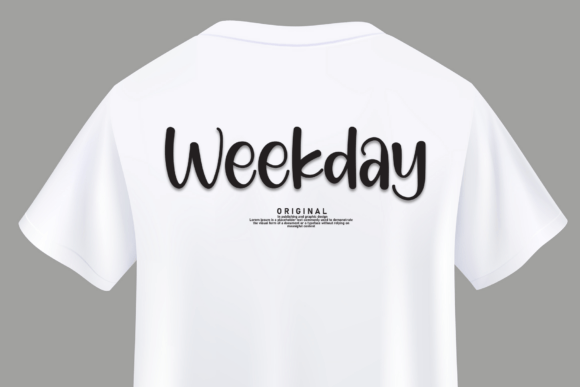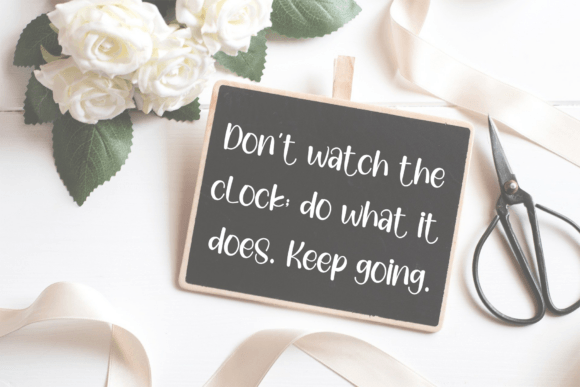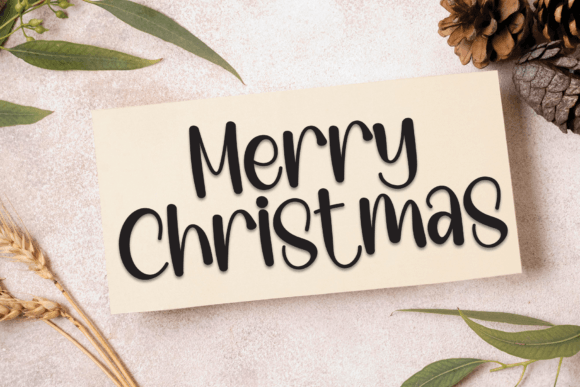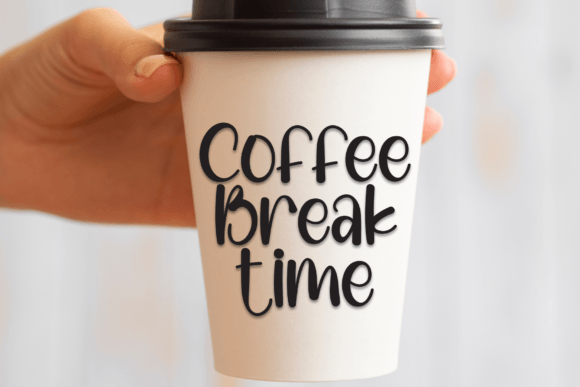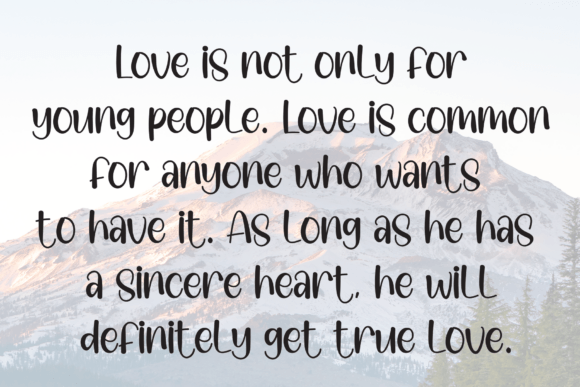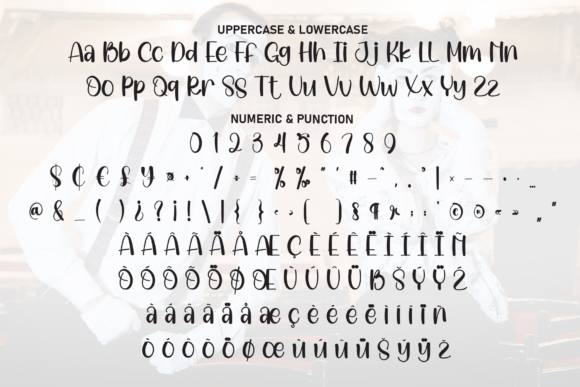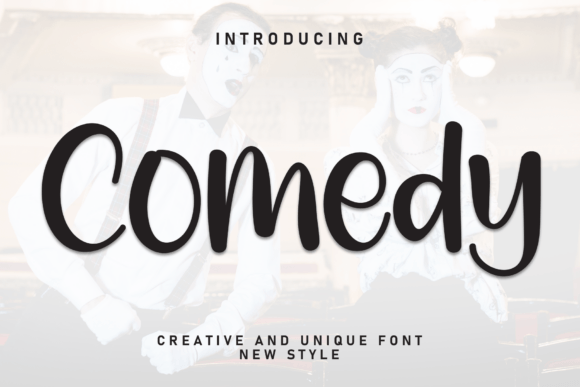
The Power of Comedy Font: Adding a Cheerful Touch to Your Designs
Are you tired of using the same old fonts in your designs? Do you want to add a playful and cheerful touch to your posters, invitations, and social media posts? Look no further than the Comedy Font! This bold and fun handwritten font is perfect for designers and crafters who want to bring a sense of joy and creativity to their work.
What is Comedy Font?
Comedy Font is a playful, handwritten font that features bold, fun letters. Its casual and lighthearted style makes it perfect for a variety of design projects, from posters and invitations to social media graphics and more. The thick strokes of the font make it easy to read, while its quirky charm brings a sense of personality and whimsy to any design.
Key Features of Comedy Font
- Bold and Fun Letters: Comedy Font features bold, fun letters that are sure to grab attention.
- Casual and Lighthearted Style: The font has a casual and lighthearted style that is perfect for adding a cheerful touch to your designs.
- Easy to Read: The thick strokes of the font make it easy to read, even at smaller sizes.
- Quirky Charm: The font’s quirky charm brings a sense of personality and whimsy to any design.
Uses for Comedy Font
Comedy Font is a versatile font that can be used in a variety of design projects, including:
- Posters: Use Comedy Font to create eye-catching posters for events, promotions, and more.
- Invitations: Add a playful touch to your invitations with Comedy Font.
- Social Media Graphics: Use Comedy Font to create fun and engaging social media graphics.
- Crafting Projects: Comedy Font is perfect for crafters who want to add a personal touch to their projects, such as handmade cards and gift tags.
Tips for Using Comedy Font
Here are a few tips for using Comedy Font in your designs:
- Use it Sparingly: While Comedy Font is fun and playful, it can be overwhelming if used too much. Use it sparingly to add a touch of personality to your designs.
- Pair it with Other Fonts: Comedy Font pairs well with other fonts, such as sans-serif fonts. Experiment with different pairings to find the one that works best for your design.
- Experiment with Colors: Comedy Font looks great in a variety of colors. Experiment with different colors to find the one that works best for your design.
Comedy Font is a fun and playful font that is perfect for designers and crafters who want to add a cheerful touch to their work. Its bold and fun letters, casual and lighthearted style, and quirky charm make it a versatile font that can be used in a variety of design projects. Whether you’re creating posters, invitations, social media graphics, or crafting projects, Comedy Font is sure to bring a sense of joy and creativity to your designs.